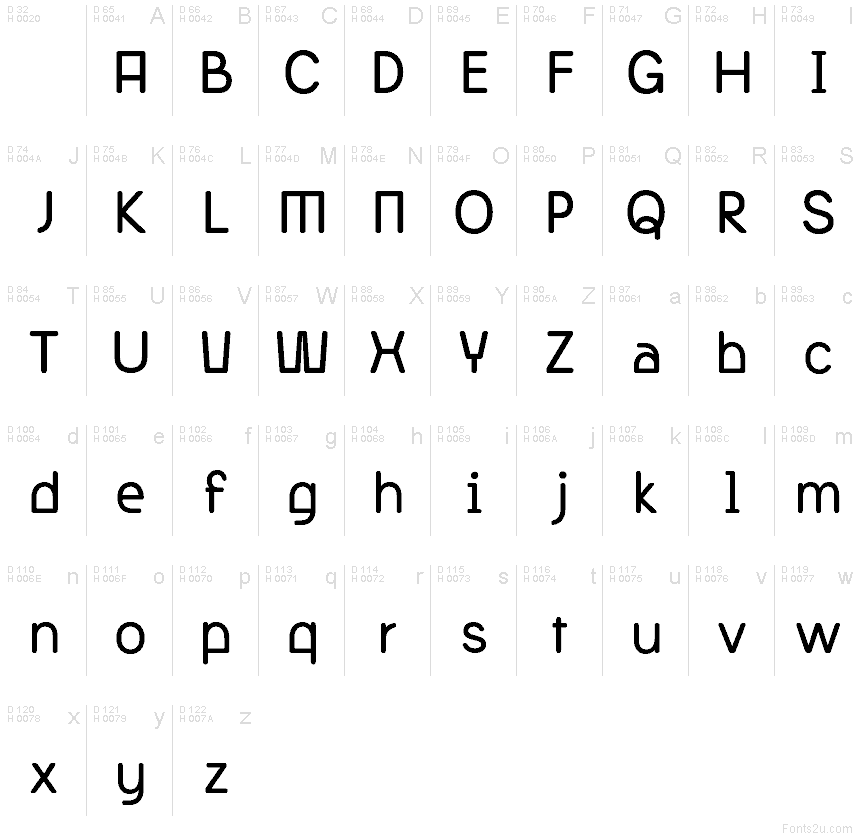
QalitedRounded-Regular Demo
Qalited Rounded font is a free geometric display font from Craft Supply Co.. The modern minimalist appearance of this typeface is evident in every letter with structured rounded corners and zero potential sharp edges. Uniformity and exceptional consistency maintain a stylish and elegant retro-like vibe making it ideal for stunning modern print and web display designs.